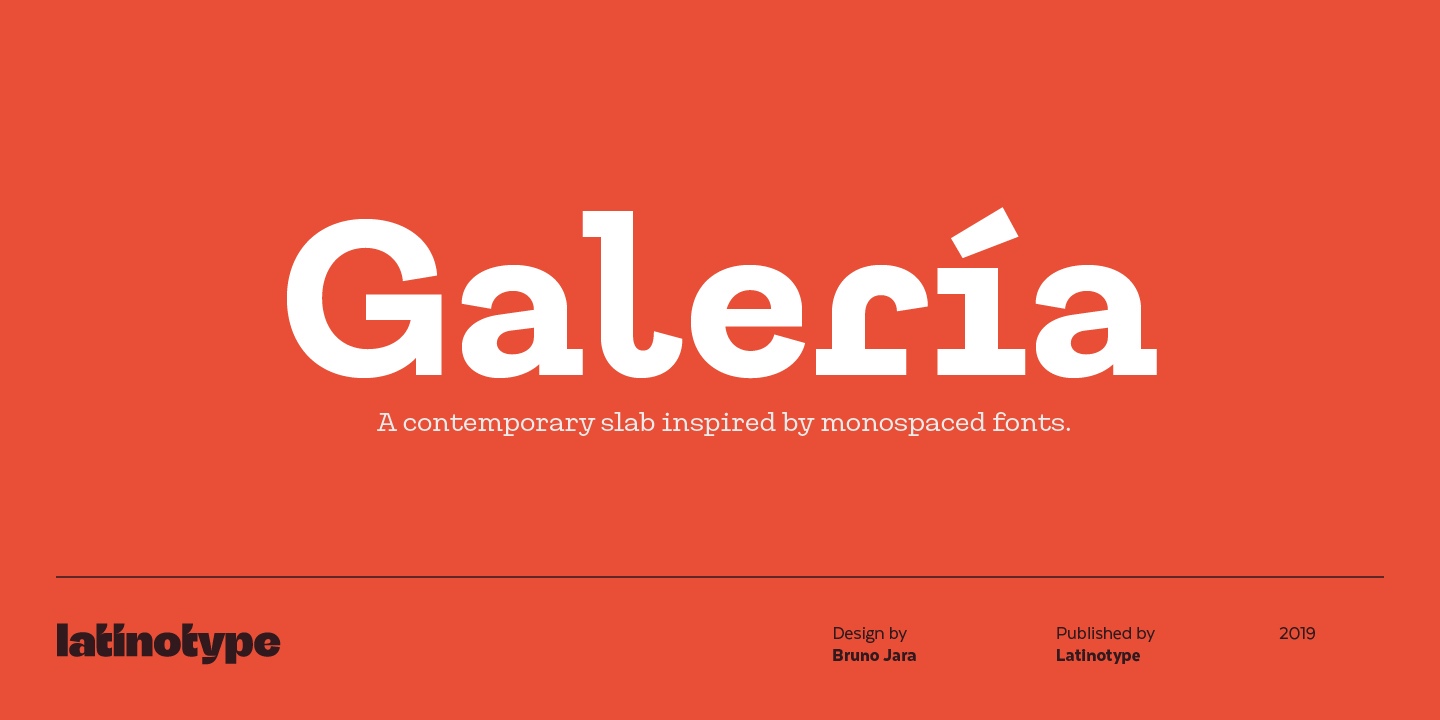
Galeria Font
This Galeria Font is perfect for art gallery branding, museum exhibition materials, contemporary art publications, cultural center signage, artistic portfolio designs, creative studio communications, fine arts marketing, gallery opening invitations, art auction catalogs, and sophisticated cultural event promotions.
What makes this Galeria Font exciting is its artistic sophistication that captures the refined elegance and cultural depth of contemporary gallery spaces. The font features curated letterforms with gallery-quality precision that convey artistic excellence, cultural refinement, and creative authority. Its exhibition character and cultural authenticity make it ideal for brands seeking to communicate artistic vision, cultural significance, and creative excellence in arts and cultural markets.
The Galeria Font family includes light, regular, medium, and bold weights with artistic alternates, cultural variants, and exhibition-inspired flourishes. This comprehensive cultural font family provides designers with sophisticated typographic tools to create artistic compositions while maintaining the gallery character essential for arts organizations and cultural institution communications.
Art galleries and cultural institutions consistently choose Galeria Font Free Download for projects requiring artistic authenticity and cultural sophistication. This font's distinctive gallery character perfectly captures the creative excellence and cultural refinement that resonate with audiences who appreciate fine arts, contemporary culture, and brands that embody artistic vision and cultural significance.
The curatorial construction of Galeria Font showcases expertly crafted letterforms with artistic proportions that ensure exceptional sophistication across all cultural applications. Its gallery appearance and creative authority create memorable impressions while maintaining the readability necessary for effective arts communication and cultural marketing materials.
Professional designers appreciate how Galeria Font brings immediate artistic credibility and cultural authority to brand communications. The font's gallery nature allows organizations to communicate creative excellence and cultural significance while maintaining the professional quality necessary for effective positioning in competitive arts and cultural markets.
The artistic appeal of Galeria Font makes it particularly effective for brands emphasizing creative vision, cultural refinement, and artistic excellence. Its sophisticated character resonates strongly with audiences who appreciate contemporary art, cultural experiences, and institutions that represent the pinnacle of artistic achievement and cultural significance.
Whether developing branding for contemporary art galleries or creating materials for cultural festivals, Galeria Font Free Download provides the artistic typographic foundation that cultural brands need to communicate their creative vision, cultural authority, and the sophisticated excellence that defines contemporary arts and cultural institution achievement.